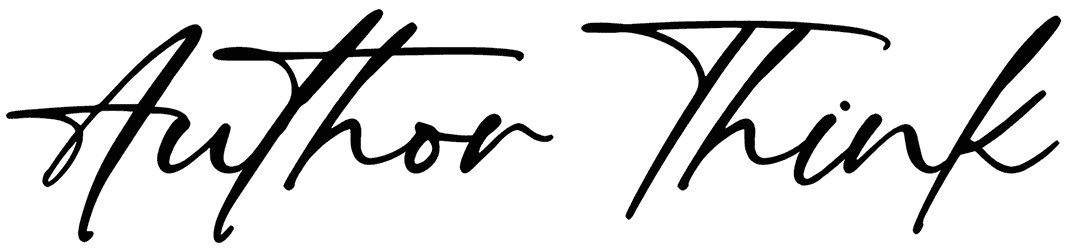
Author Think Font
Author Think is an authentic signature handwritten script font! What makes this cursive font special is its powerful and very complicated design, which looks incredible! The playful characters individually have an irresistible and natural structure to give your typography a classy feel.
If you are looking to add an outstanding luxury font, then Author Think is the most promising selection for you. Some numbers and punctuation are missing from its letterforms! Try it in magazines, posters, clothing, branding, and invitation cards.